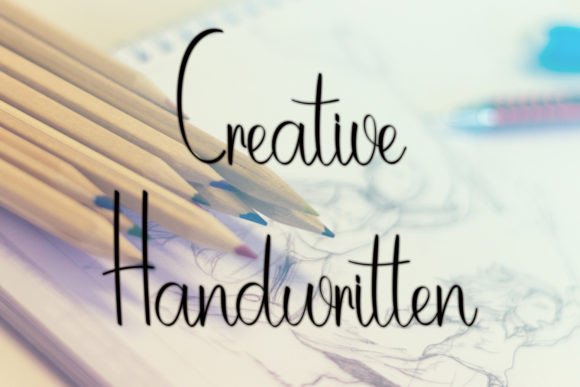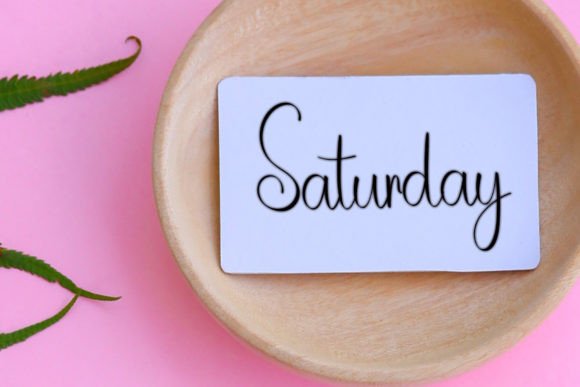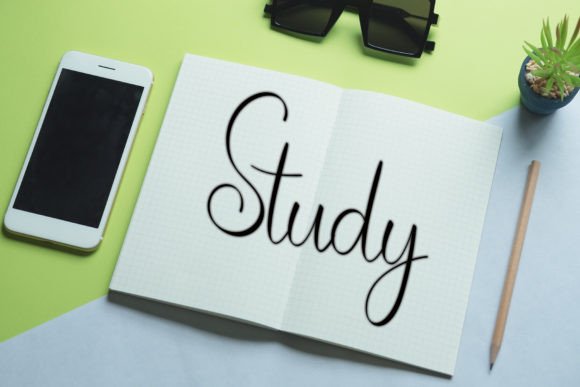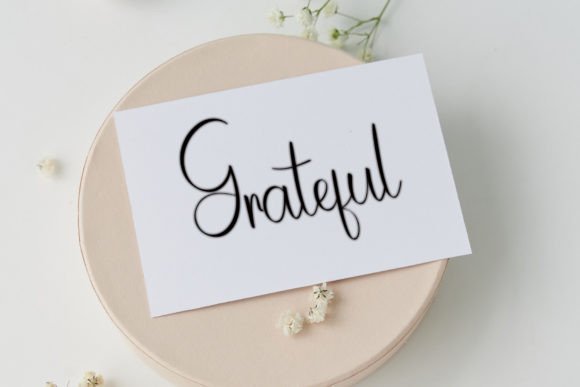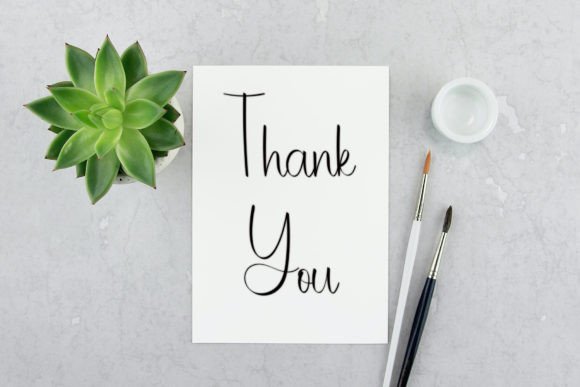
The Elegance of Calligraphy Font: A Designer’s Delight
I’ll never forget the moment I first laid eyes on a beautifully crafted calligraphy piece. I was working on a wedding invitation project, and my client had sent me a picture of a stunning handwritten font that she wanted me to replicate. I was determined to find the perfect match, but my search led me down a rabbit hole of mediocre fonts that just didn’t cut it. That was until I stumbled upon the exquisite Calligraphy Font. ✨
Masterfully designed to evoke a sense of classic elegance, this font has become a true favorite of mine. It effortlessly blends traditional calligraphic influences with a modern twist, making it perfect for a wide range of creative projects. In this article, I’ll share my love for Calligraphy Font, its features, and how to make the most of it in your designs.
- ✨ Elegant and sophisticated, perfect for high-end projects
- 🎨 Versatile and adaptable to various design styles
- 💻 Excellent OpenType features, including glyphs and stylistic alternates
While Calligraphy Font is an exceptional font, there are a few minor quirks to be aware of: 🤔
- ⚠️ Limited availability of condensed or extended versions
A Practical Guide: Using Calligraphy Font in Your Designs
- Experiment with OpenType features, such as glyphs and stylistic alternates, to add visual interest
A Brief Backstory: The Inspiration Behind Calligraphy Font
Calligraphy Font was designed by a team of skilled typographers who sought to create a font that would evoke the elegance and sophistication of traditional calligraphy. Inspired by the works of master calligraphers, they carefully crafted each letterform to convey a sense of refinement and luxury. The result is a font that is both timeless and contemporary, perfect for designers and crafters looking to add a touch of class to their projects.
Q: What is the best way to use Calligraphy Font in my designs?
A: Calligraphy Font is versatile and can be used in a variety of design projects, from wedding invitations to branding materials. Experiment with different OpenType features, such as glyphs and stylistic alternates, to add visual interest.
Q: Is Calligraphy Font suitable for body text?
A: While Calligraphy Font is highly legible, it is best suited for headings, titles, and short paragraphs. For longer body text, a more traditional serif or sans-serif font may be more suitable.